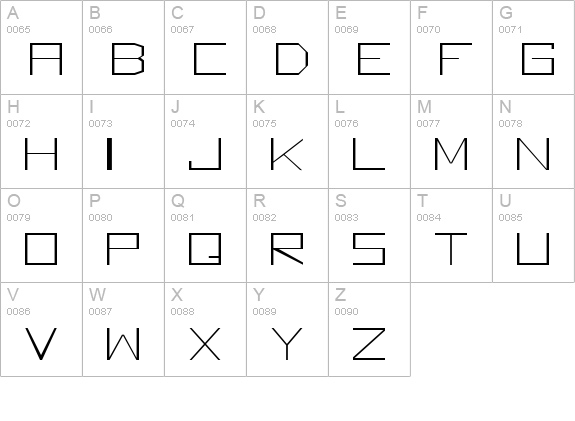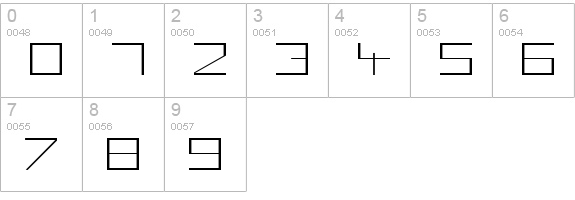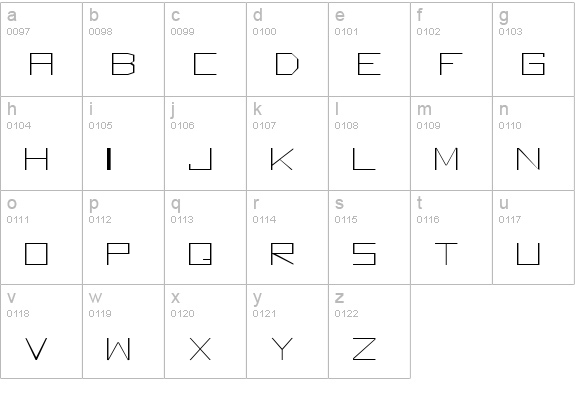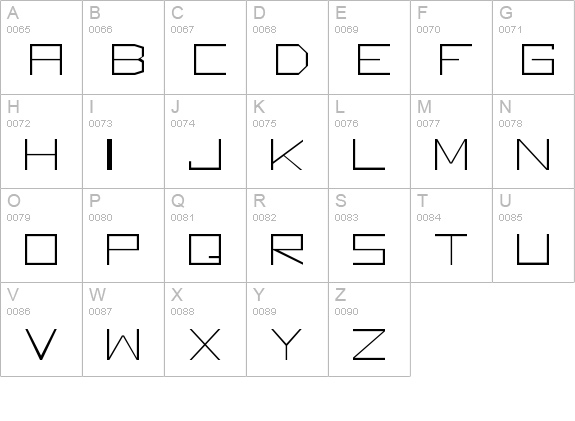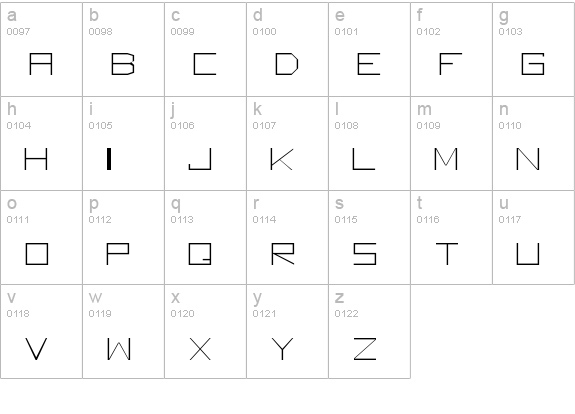
Square Unique Thin Font Details
Square Unique Thin is a delicate, low-contrast variant in the Square typeface family \xE2\x80\x94 well suited to fashion editorial, minimal branding, and high-contrast display.
Square Unique Thin font is a modern and sleek typeface that exudes elegance and sophistication. With its clean lines and geometric shapes, this font is perfect for adding a touch of contemporary flair to any design project. Its thin strokes give it a delicate and refined appearance, making it suitable for a wide range of applications. This versatile font can be used for various purposes, including logos, headlines, posters, and branding materials. Its unique design sets it apart from other fonts, making it a standout choice for those looking to make a statement with their typography. One of the best things about Square Unique Thin font is that it is free. Yes, you read that right! This amazing font is freely available to download at FontsMarket.com. It's a great opportunity to enhance your design arsenal without spending a dime. Whether you're a professional designer or an amateur enthusiast, this free font is a must-have addition to your collection. Download Square Unique Thin font today and unleash your creativity. Its sleek and modern design will add a touch of sophistication to any project. Don't miss out on this amazing free font – visit FontsMarket.com now and get ready to take your designs to new heights.